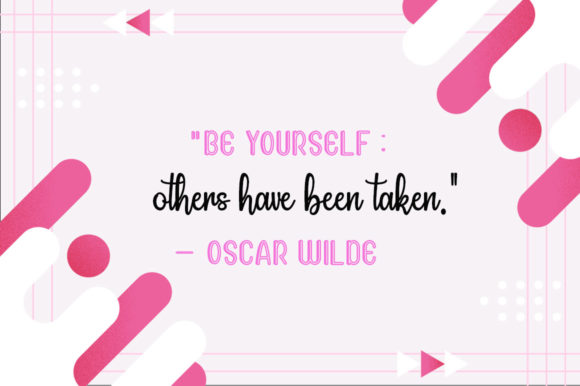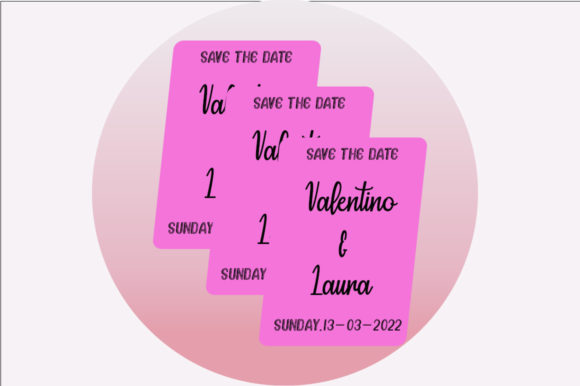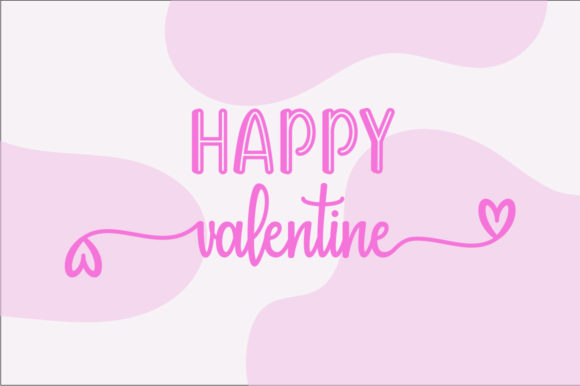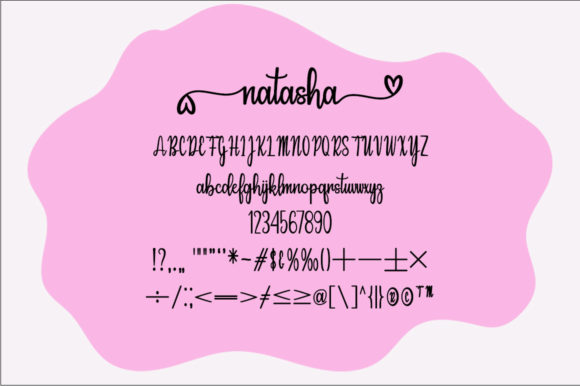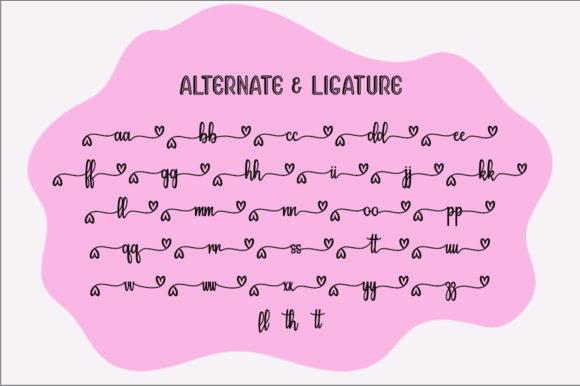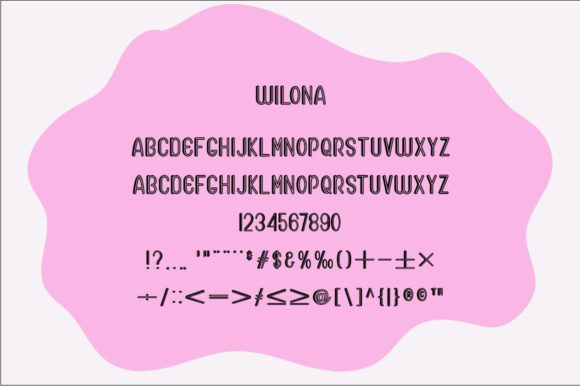
Introduction to Natasha Wilona Font
Natasha Wilona is a sweet and lovely duo font perfect for any design you can think of.
Warm, romantic, and jolly, this font will turn each of your project ideas into real works of art Natasha Wilona is PUA encoded which means you can access all of the glyphs and swashes with ease.
Natasha Wilona Font offers exceptional quality and versatility, making it a valuable addition to your design toolkit. Whether you’re creating for personal projects or commercial use, Natasha Wilona Font delivers professional results.